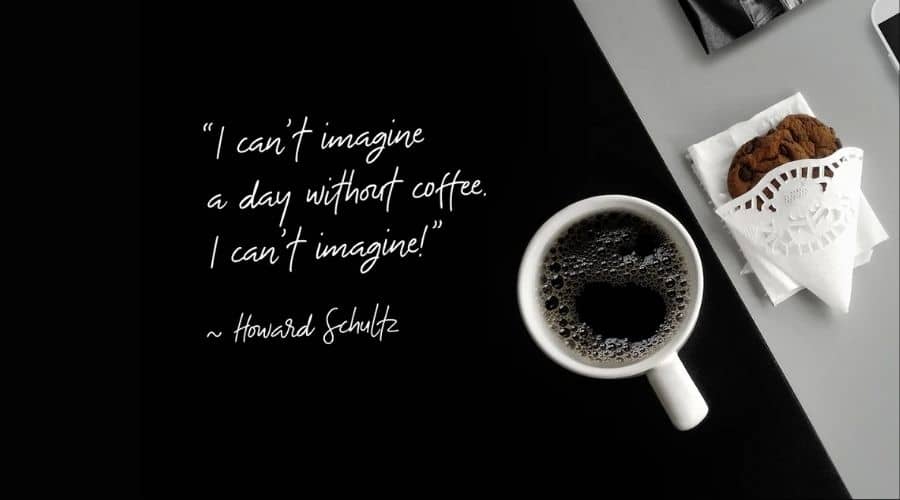
The Bouquet List Font
The Bouquet List is the ultimate handwriting, script font which is now available. When you compose any bucket list or itinerary in your diary while traveling, this Font might be your first choice which is inspired by the beauty of a flower bouquet and the elegance of handwriting. Vector developed and released the Font on May 27, 2018.
It has a smooth swash and a magical underlining thanks to its OpenType features. It also has PUA Encoded built-in. How do I quickly apply swash? After the word, type space three times. How do I make an underline? 2 or 3 or 4 times type underscore.
The following ligatures are included in this Font: 00 30 50 Cr Ch Fi Fo Fu bb cc dd ff ll mm nn rr ss at et ft tt att nt ar br cr dr er ir lr mr nr arr err irr tir om on oo ou ov ow ti to tz fz sz zz ck fa en do li es ess est ism ist ed id lk is it sa tis ct fi fl st ou. swash nt.swash on.swash st.swash. This Font is divided into three groups, each with its own set of glyphs. These are the following: There are 456 glyphs in The Bouquet List Regular (OTF&TTF), 456 glyphs in The Bouquet List Bold (OTF&TTF), and 69 glyphs in The Bouquet List Extras (OTF&TTF).
The Bouquet List is a handwritten Script typeface with more than 70 ligatures that provides gorgeous typography in an organic, realistic, and natural handwriting manner.
The font is perfect for Magazines, social media postings, travel blogs, travel vlogs, signatures, sticky notes, journals, quotes, restaurant menus, websites, women’s items, calendar marks, book covers, commercials, wedding designs, and even logo and branding.
The Bouquet List Font View